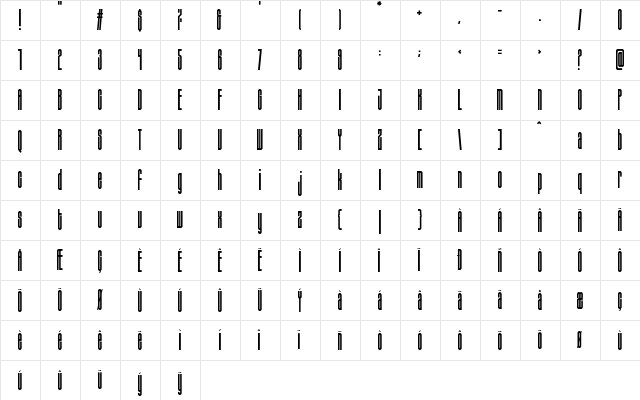
Sigana Cond Regular
Design Context for Sigana Cond Typeface
Sigana Cond takes a measured approach to typography — its balanced proportions and neutral character make it a reliable workhorse for both digital and print work. Its narrow stance lets it pack a punch even in space-constrained designs.